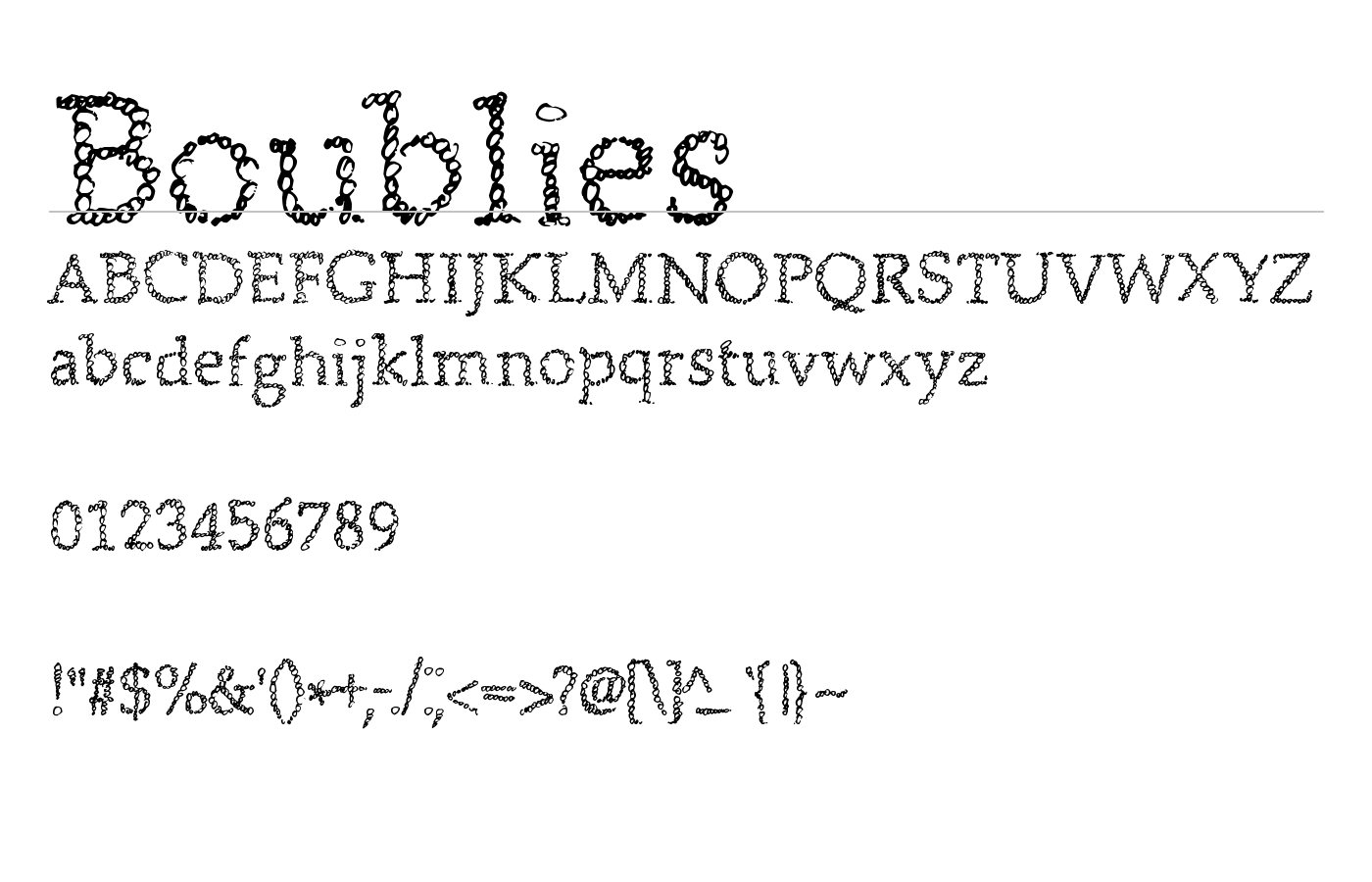
Boublies is a whimsical serif font characterized by its playful, bubble-like outlines that form each letter, giving it a light and airy appearance. This font’s irregular, hand-drawn style makes it perfect for creative and informal designs, adding a fun and quirky touch to projects like posters, children's books, or casual branding. Its unique decorative quality makes it stand out in headlines and display uses where a lively and imaginative atmosphere is desired.
Boublies Font
About Boublies Font
| Font family | Boublies Font |
| Designer | Max Infeld - Xerographer Fonts |